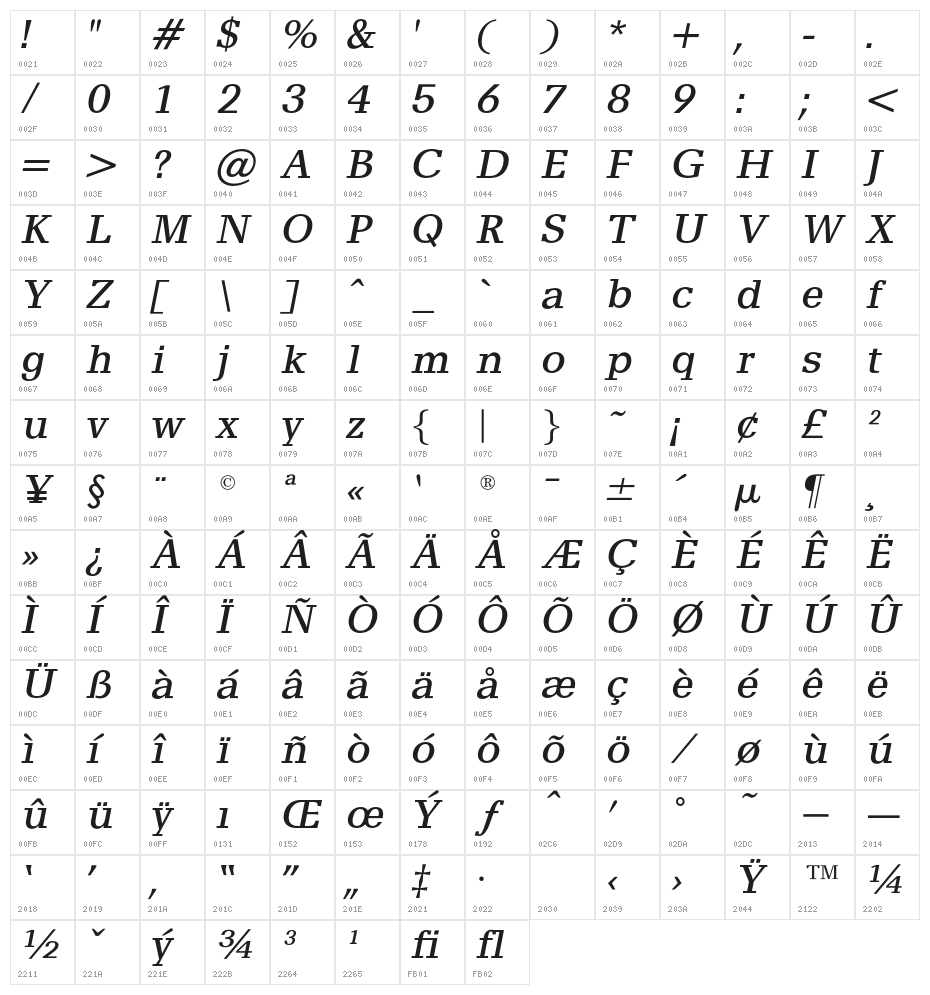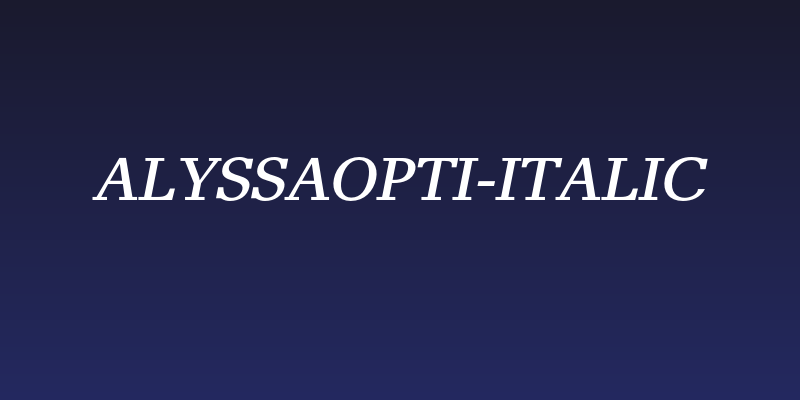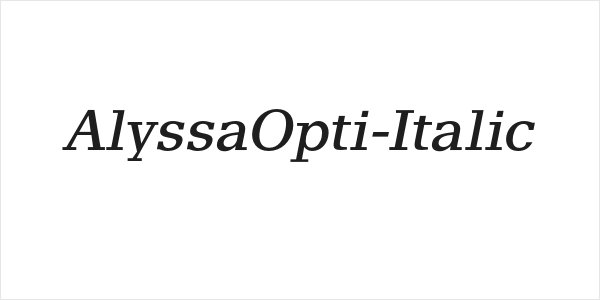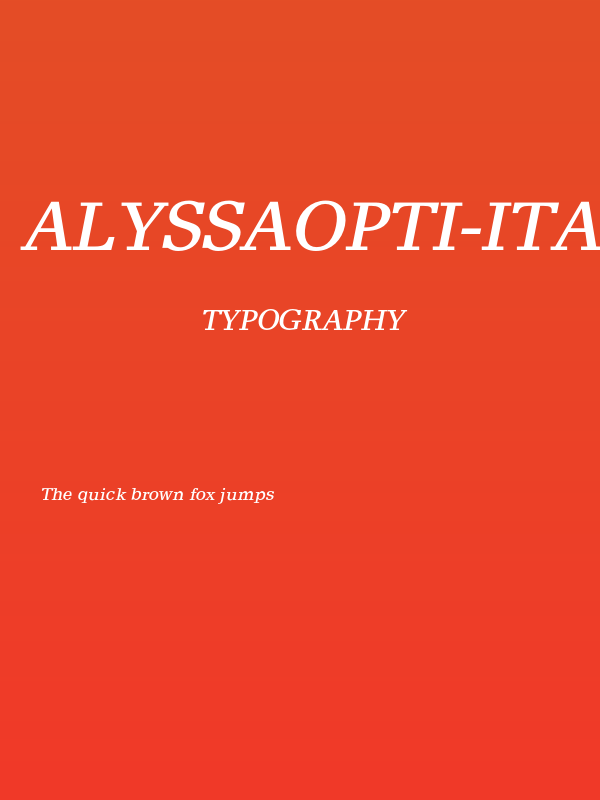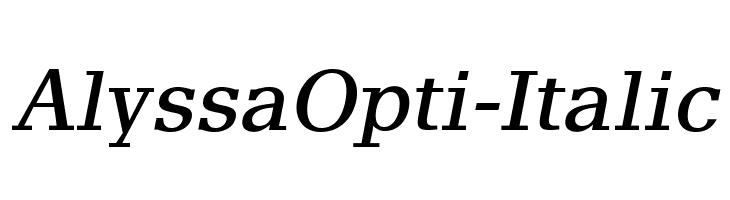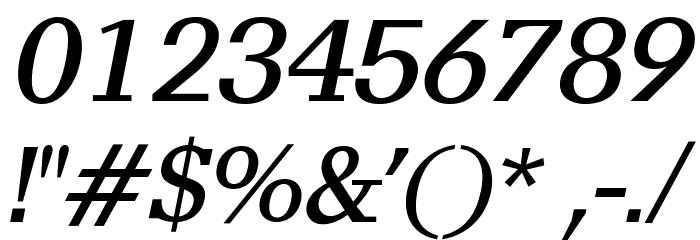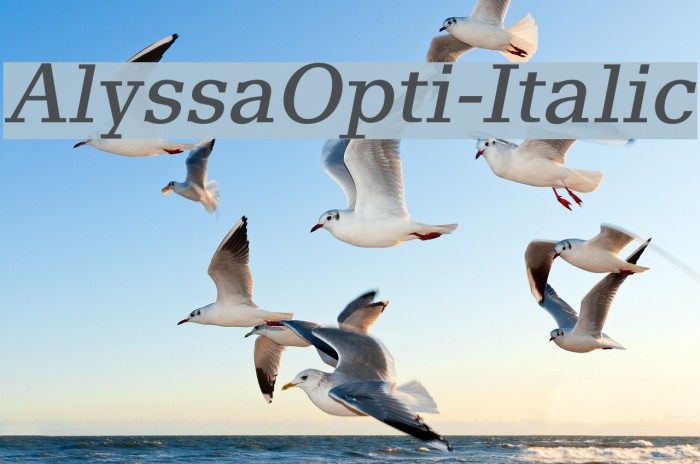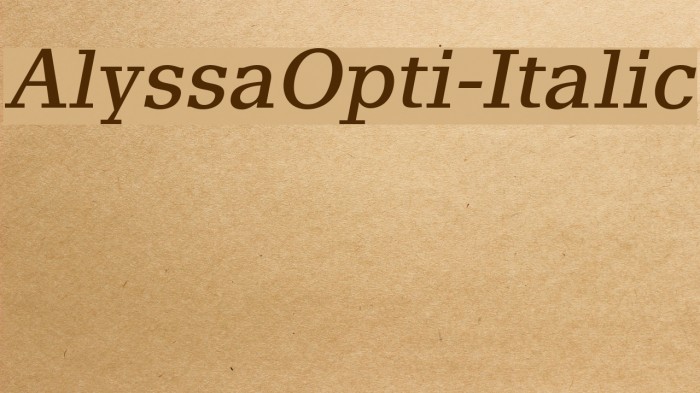
AlyssaOpti-Italic Font
AlyssaOpti-Italic Description
This font features a classic serif style with a distinct italic slant, giving it a sophisticated and elegant appearance. The characters are well-defined with moderate contrast in stroke thickness, providing a balanced and readable text. The uppercase letters are slightly taller than the lowercase, maintaining a traditional serif structure. The numerals and special characters are consistent with the overall design, ensuring uniformity across different text elements. The font's italic nature adds a dynamic and flowing quality, making it suitable for formal and creative applications.
| Overall Style | Classic |
| Use Case | Headlines, Body text, Logos |
| Proposed Projects | Ideal for use in formal invitations, elegant branding, editorial design, and sophisticated web typography. |